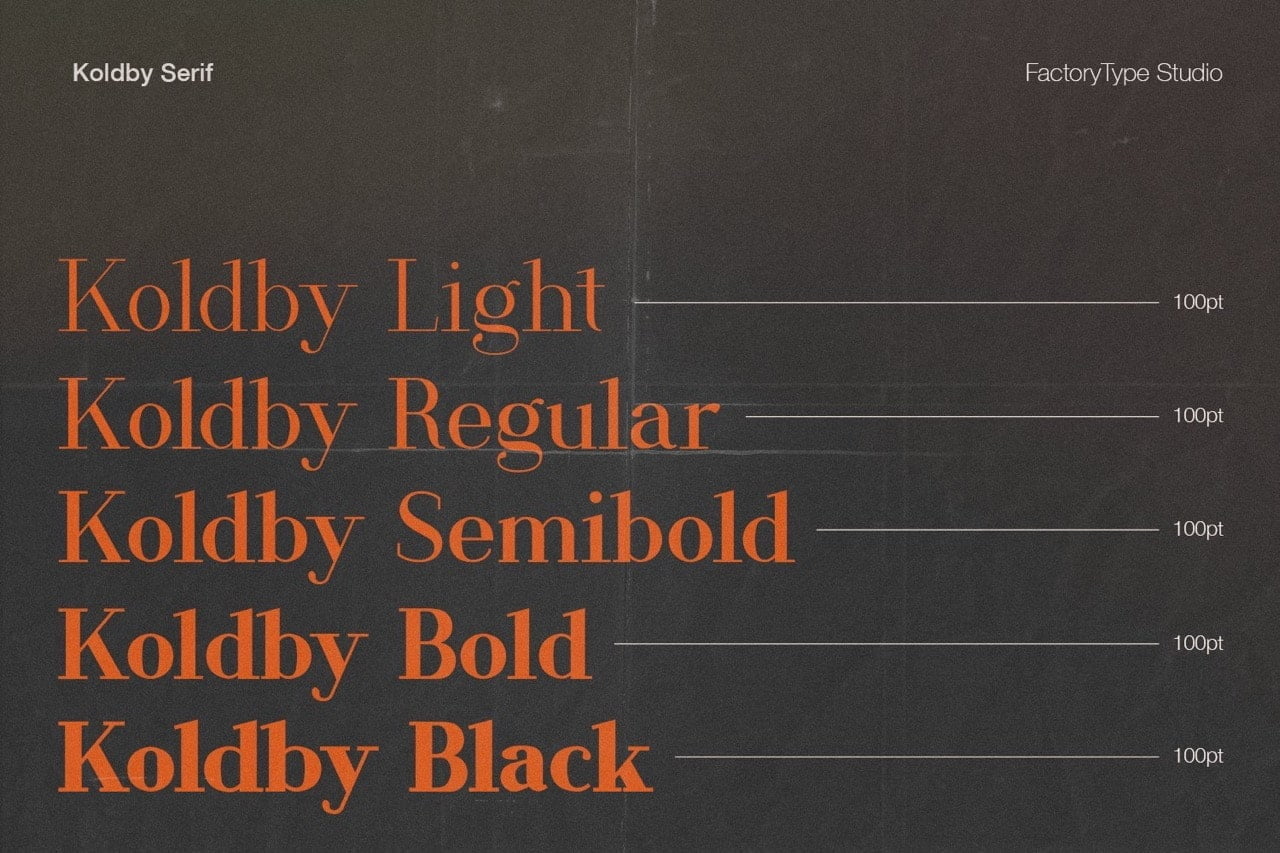
Koldby Serif combines a vintage flavor with modern elegance. The vintage serif letterforms are based on the classic old style fonts, but has been updated to appeal to contemporary design and tastes.
- 5 Weights
- 2 Styles (Regular and Italic)
- Stylistic Ligatures and Alternate Glyphs